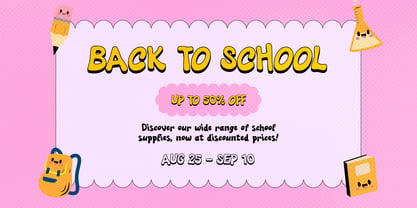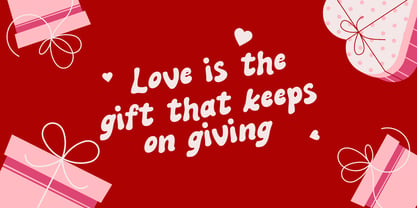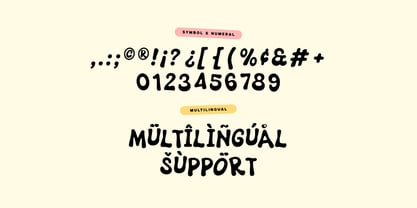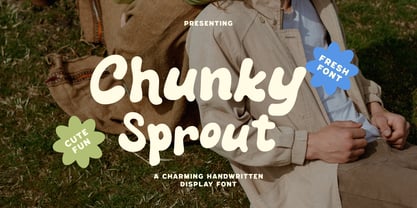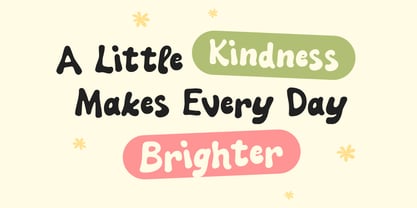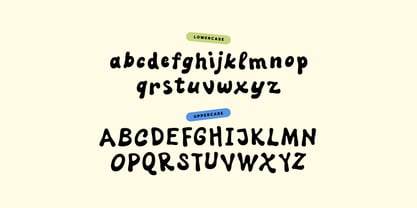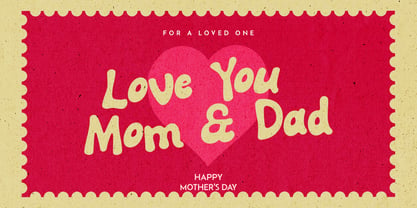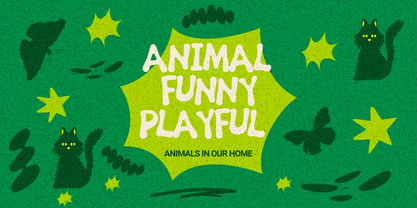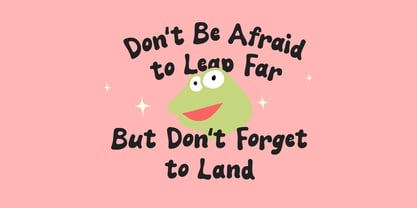
Chunky Sprout
The Chunky Sprout Font Family was designed by Aulia Savira Putri and published by Imoodev. Chunky Sprout contains 1 styles. More about this family
Meet Chunky Sprout is a charming handwritten display font that brings instant warmth and playfulness to any design. Its bold, bubbly letterforms are made for headlines that need to feel fun, friendly, and full of personality. Perfect for stickers, packaging, branding, children's books, greeting cards, social media posts, apparel graphics, quote art, and any project that could use a little more joy.
Chunky Sprout is a bold and rounded handwritten display typeface with a playful. The strokes are thick and slightly irregular, with soft blunt terminals and gently swelling contours that give each glyph a hand inked, slightly squishy feel. Counters are small and rounded, apertures are tight, and the overall weight sits heavy and friendly, chunky without feeling cramped.